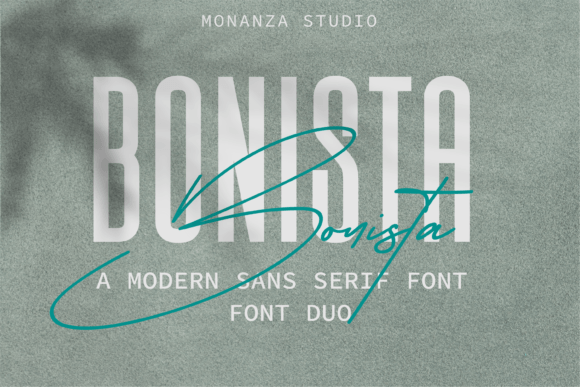
Introducing Bonista Font, the ultimate solution to your web design needs. Created by the talented monanza studio, this font collection brings together the best of both worlds - a contemporary sans-serif and a graceful script. With Bonista, you can take your designs to new heights and captivate your audience like never before.
Whether you're creating a website, logo, or social media graphics, Bonista is the perfect choice. Its seamless blend of clean lines from the sans-serif style and the exquisite beauty of script fonts will elevate your designs to a whole new level of sophistication.
But what sets Bonista apart from other font collections? It's the attention to detail that truly makes a difference. Each character has been meticulously crafted to ensure the utmost clarity and legibility. Your text will not only be visually stunning but also effortlessly readable, making it a joy for your users to navigate through your website.
With Bonista Font, you have the power to evoke emotions and leave a lasting impression. Whether you want to create a modern and sleek website or a romantic and elegant design, this font collection has got you covered. Its versatility allows you to explore endless possibilities and create designs that truly reflect your brand's personality.